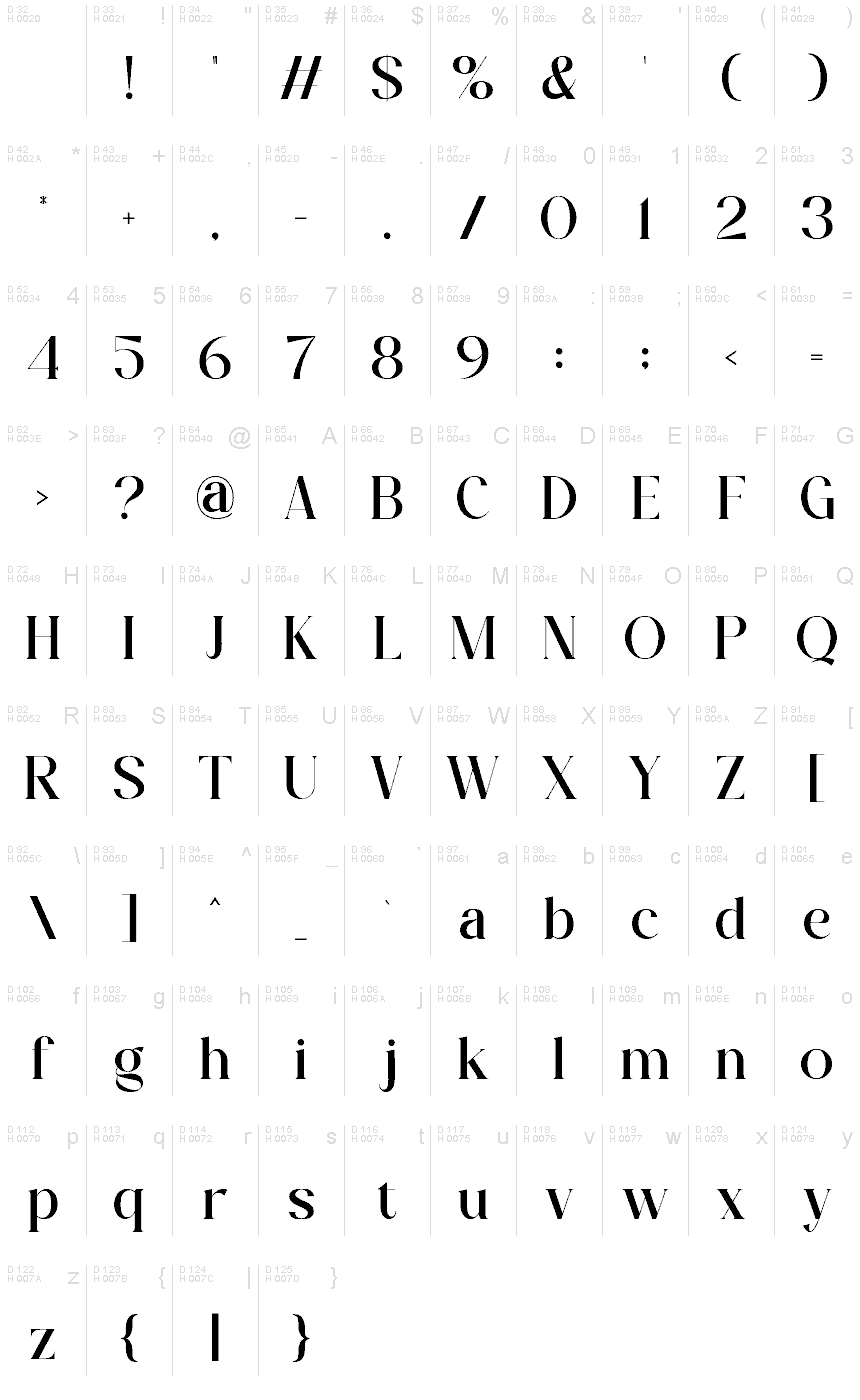
Malisha
Malisha font by Ahmad Riqi is a high-contrast modern serif design that is both elegant and sophisticated. With its timeless style, it manages to bring a novel, exciting appearance to each character. Due to optical twitches, the fonts are able to maintain readability and even improve the reading experience for users.
Free for personal use, Malisha makes an excellent font choice in branding and logo design as well as in editorial designs such as magazines or publishing. It’s fittable for flyer designs, with the possibility of also being showcased on business cards and invitations. Read more ideas related to its potential like website typography where it can shine.